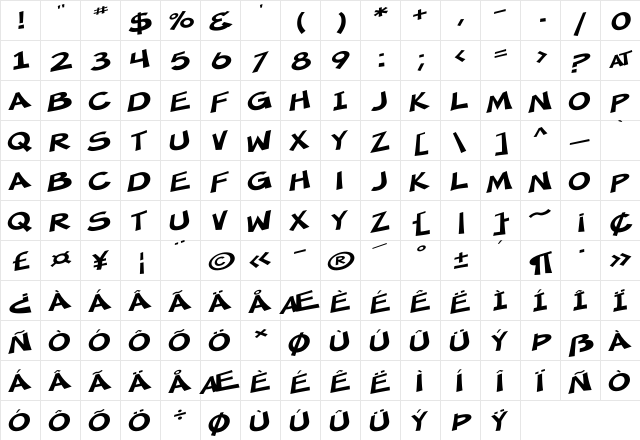
SF Minced Meat Extended Regular
Design Context for SF Minced Meat Extended Typeface
SF Minced Meat Extended is a composed and adaptable typeface that performs quietly and consistently across a wide range of design contexts.